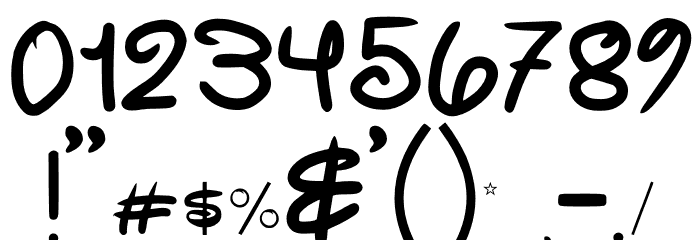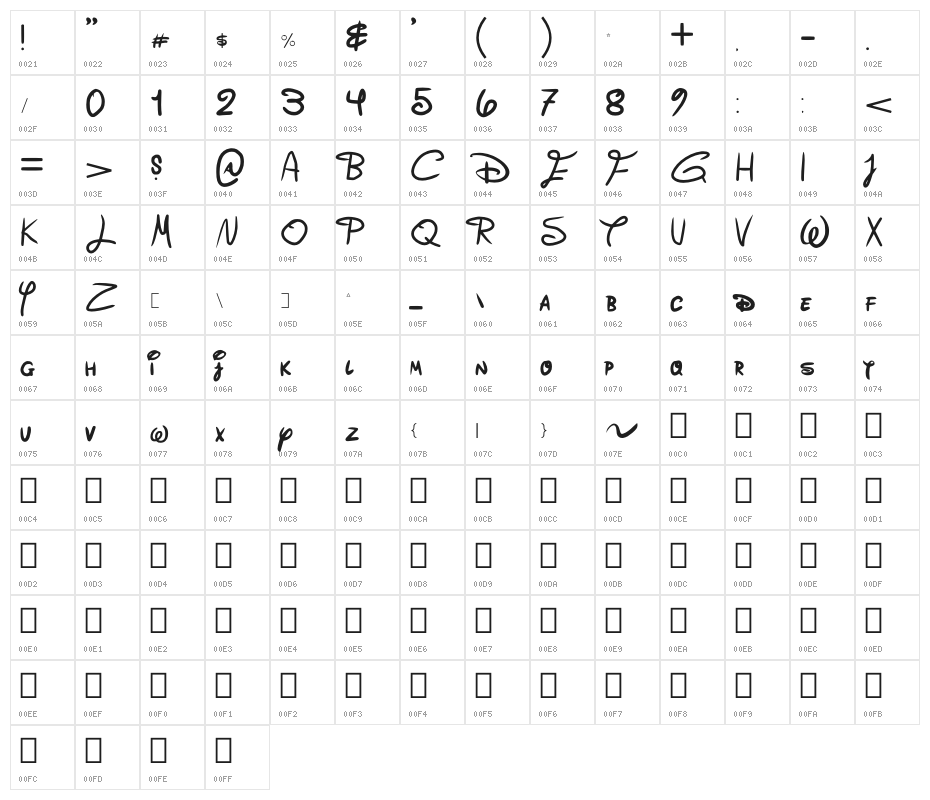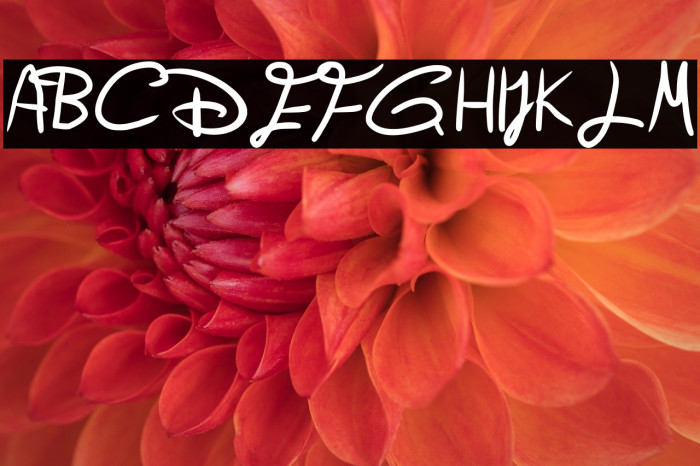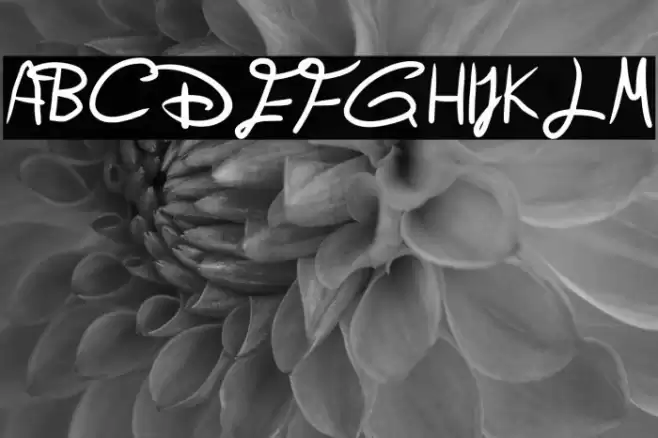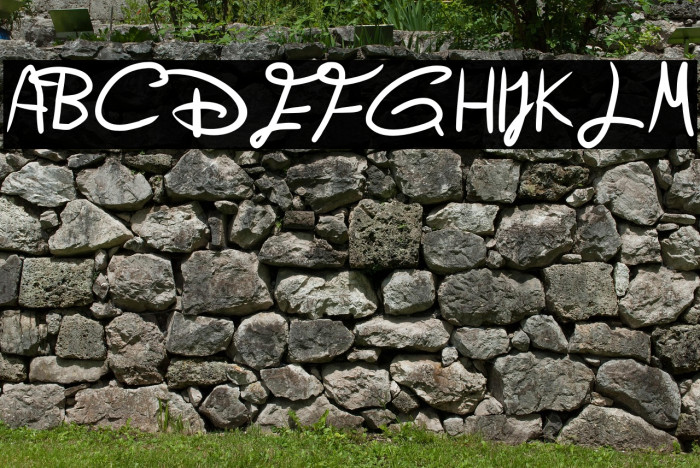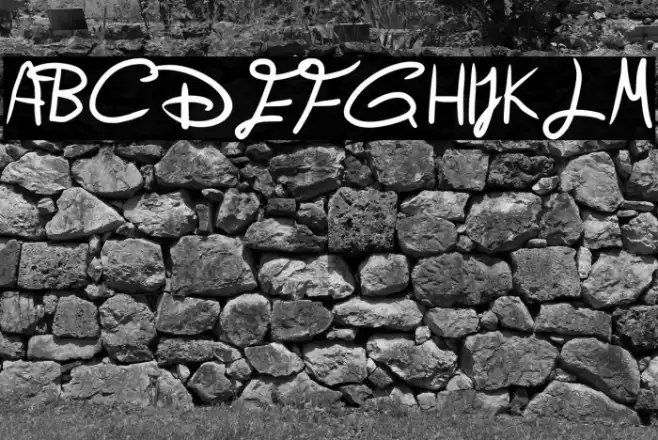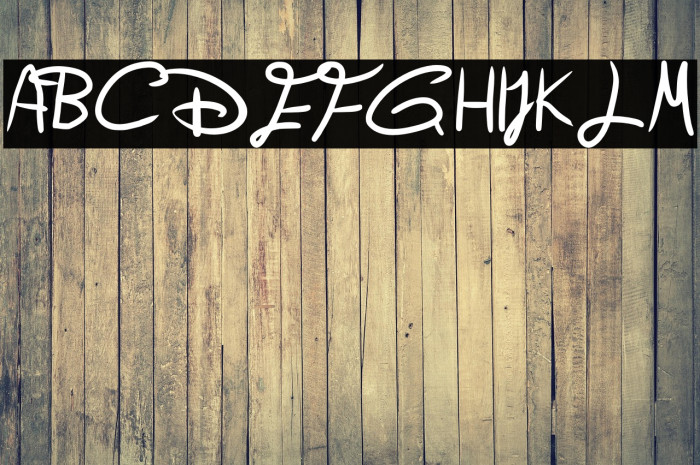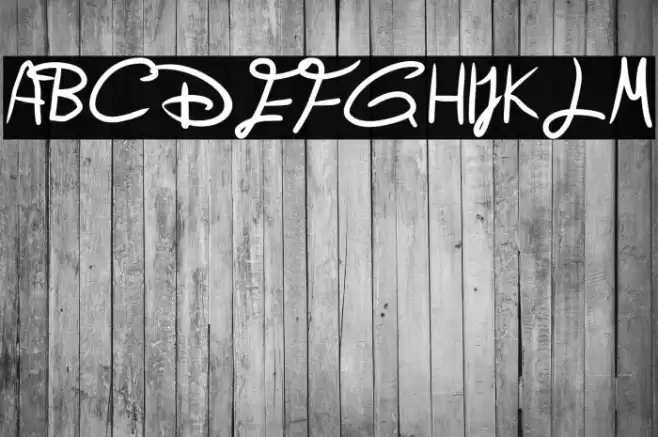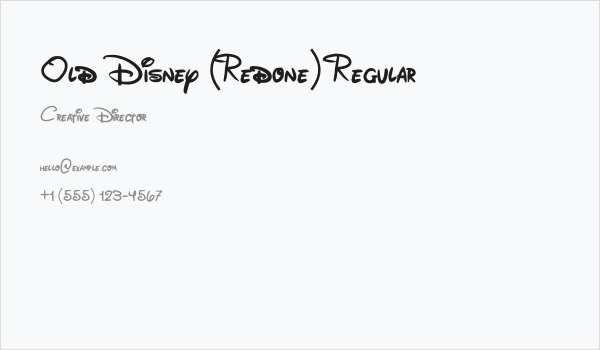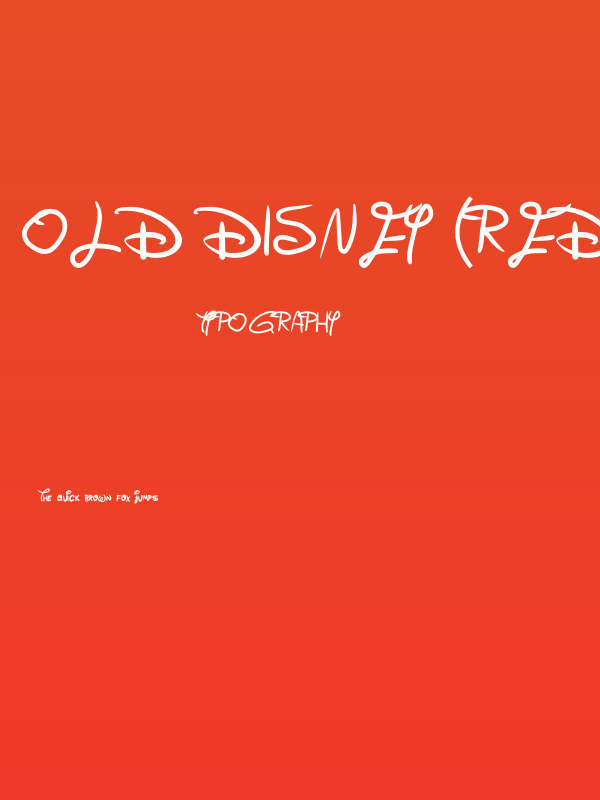
Old Disney (Redone) Regular Font
Old Disney (Redone) Regular Description
This playful and whimsical font exudes a sense of nostalgia and creativity, reminiscent of classic animation styles. The characters are bold and rounded, with a hand-drawn feel that adds a touch of charm and personality. The uppercase and lowercase letters maintain a consistent style, with unique flourishes and curves that make each character stand out. The numbers and special characters follow the same playful design, ensuring a cohesive look across all text elements. This font is perfect for projects that aim to capture a sense of fun and imagination.
| Proposed Projects | Ideal for children's books, themed party invitations, playful branding, and creative posters. |